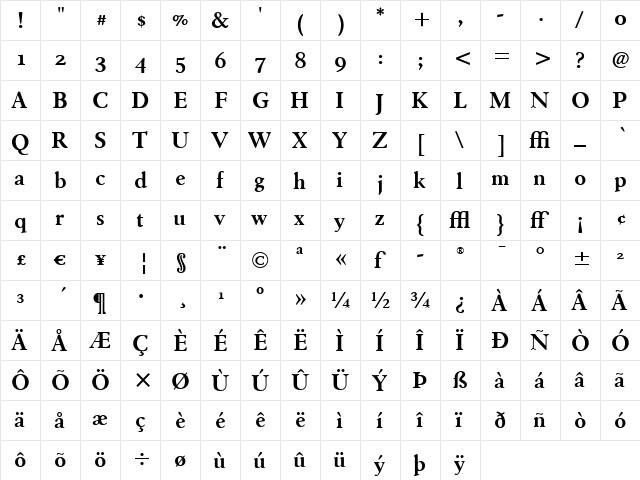
Winchester New ITC Bold
Design Context for Winchester New ITC Typeface
Winchester New ITC takes a measured approach to typography — its balanced proportions and neutral character make it a reliable workhorse for both digital and print work. The heavy weight commands attention and anchors typographic hierarchies.